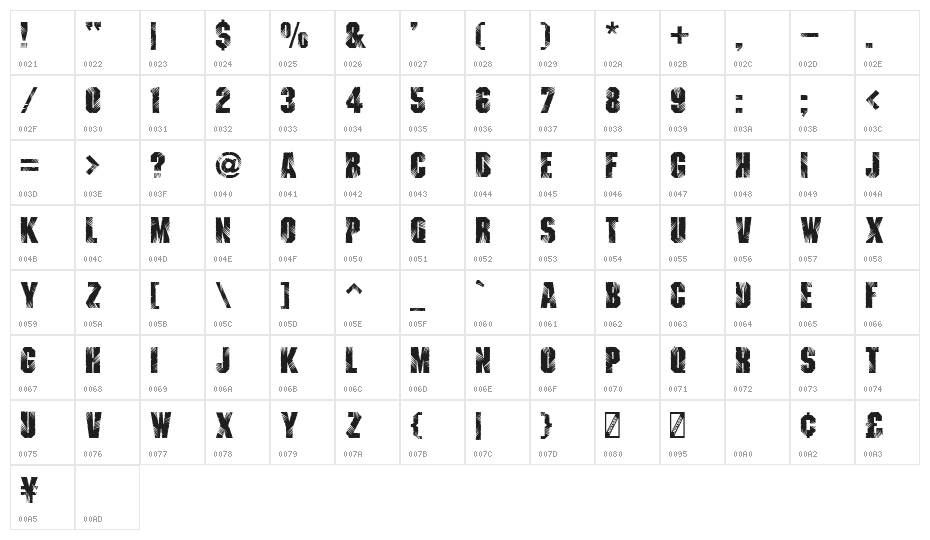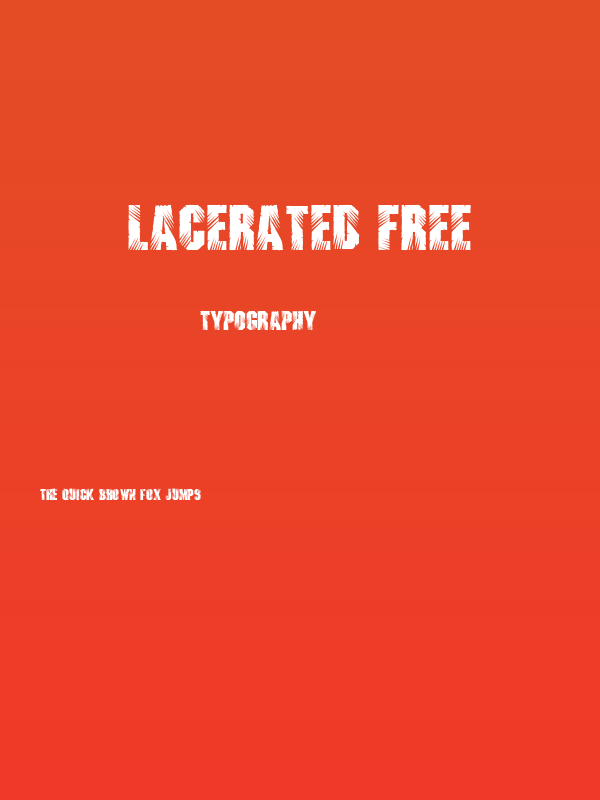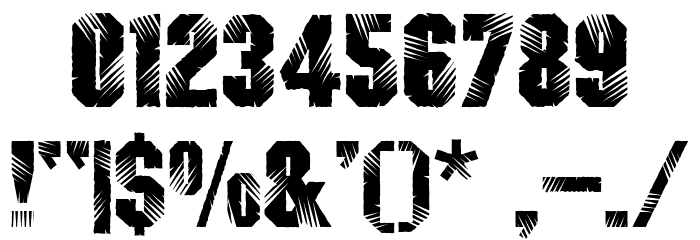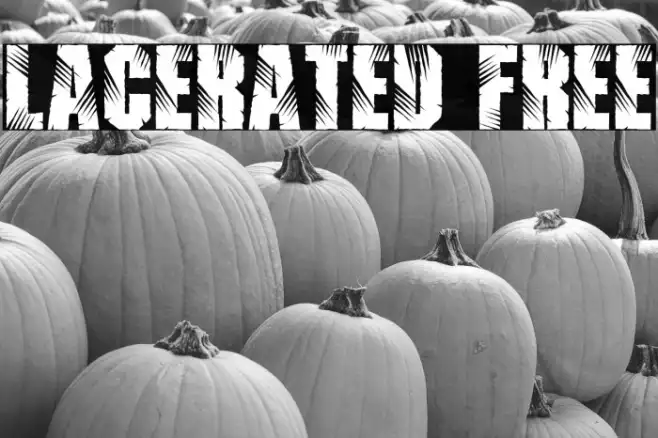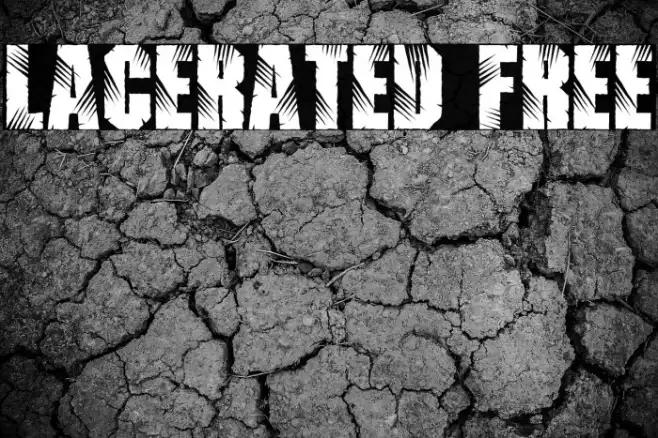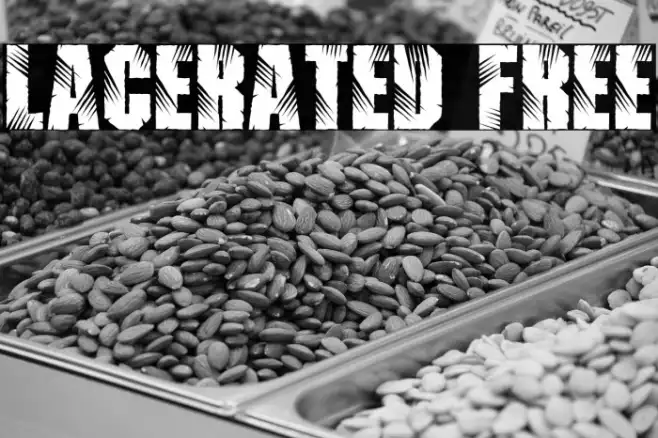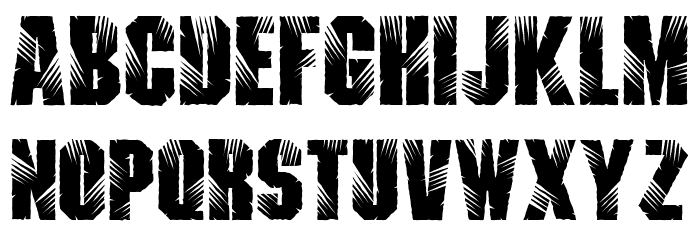
Lacerated Free Font
Lacerated Free Description
This font features a bold and aggressive style with a distressed, lacerated appearance. The characters are heavily stylized with sharp, jagged edges and a pattern that resembles torn or shredded fabric. Each letter and number is filled with diagonal lines that create a sense of movement and chaos, making it stand out with a unique, edgy look. The font is all uppercase, with consistent height and width, giving it a uniform appearance despite its chaotic design. The special characters maintain the same shredded aesthetic, ensuring a cohesive look across all elements.
| Overall Style | Modern, Edgy |
| Proposed Projects | Ideal for music album covers, edgy posters, or branding for extreme sports or urban-themed projects. |